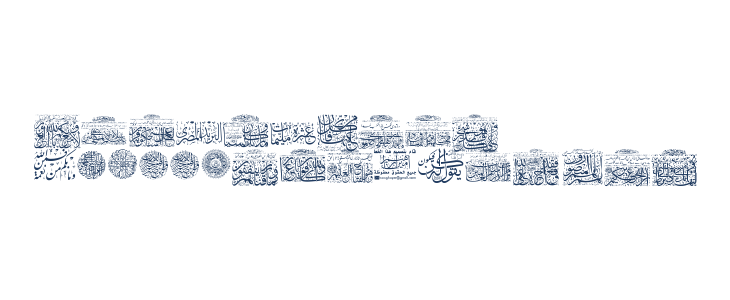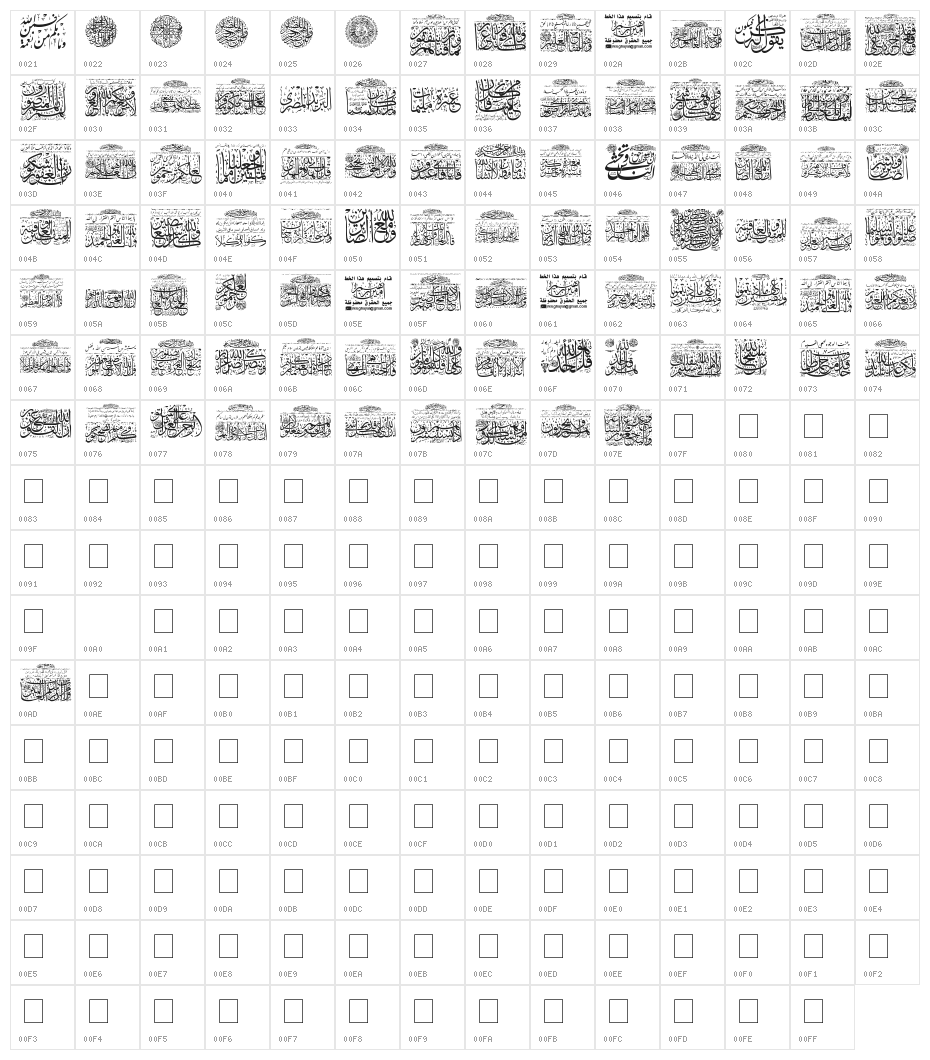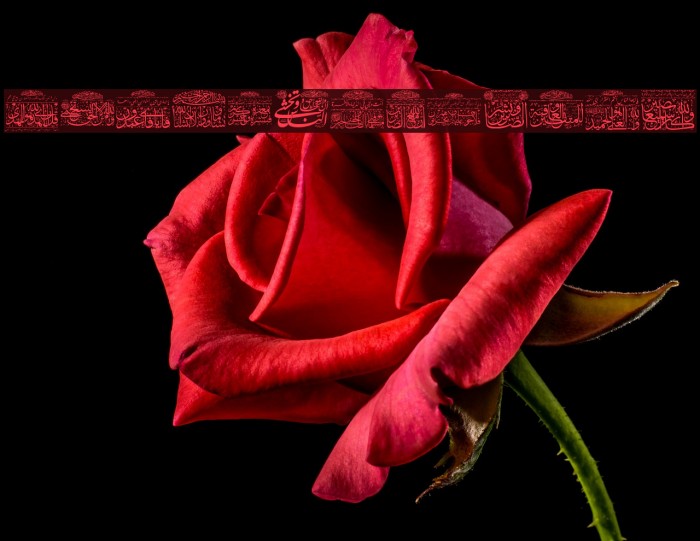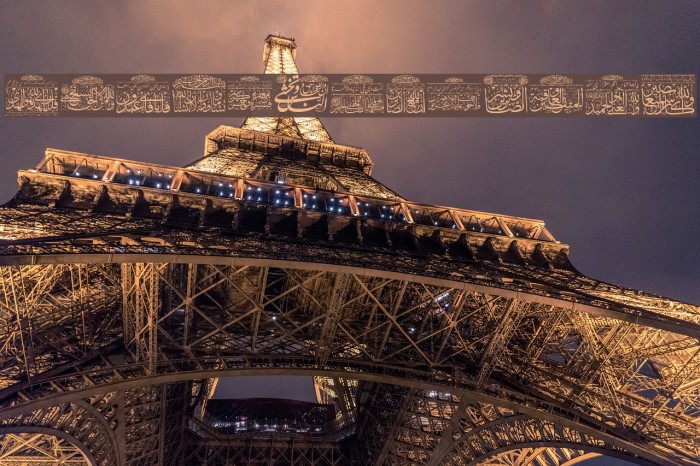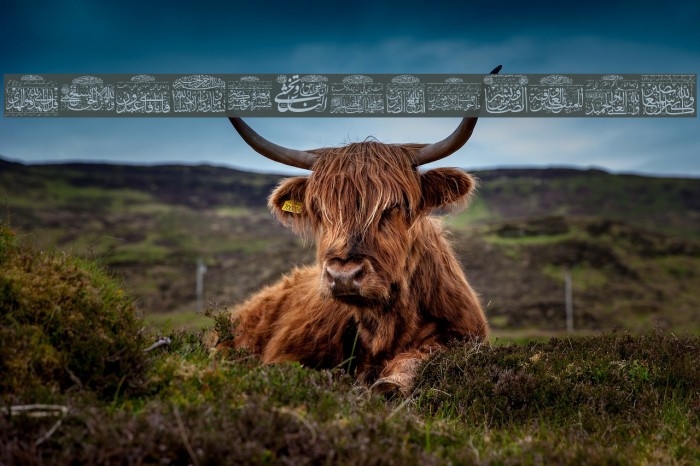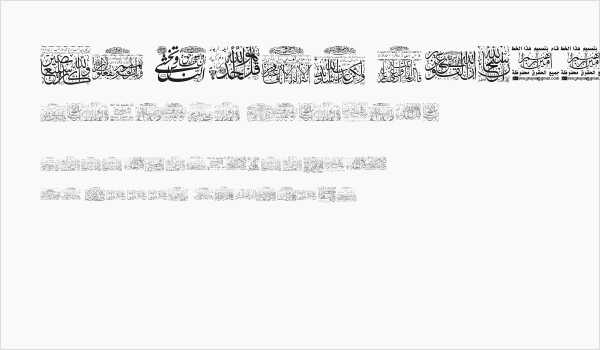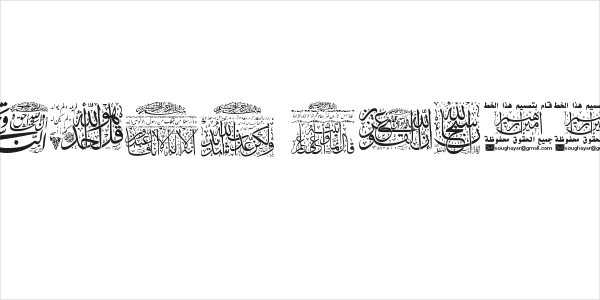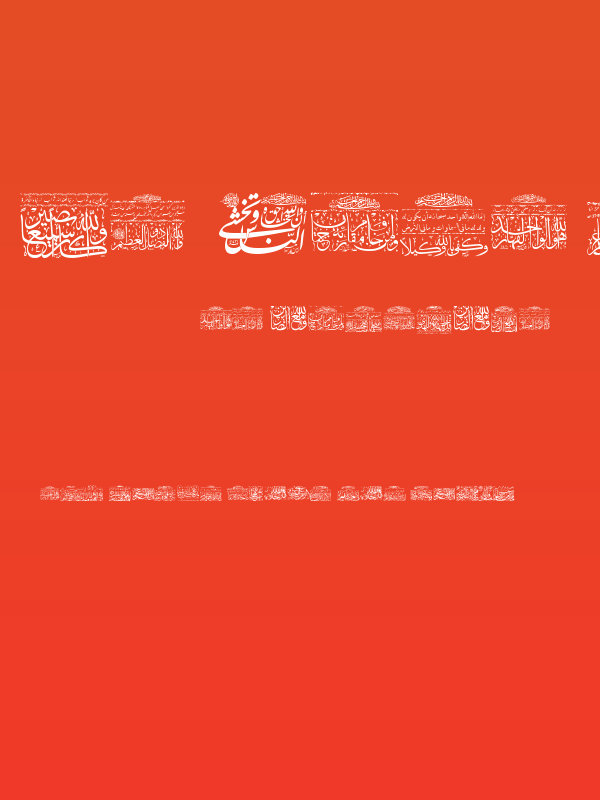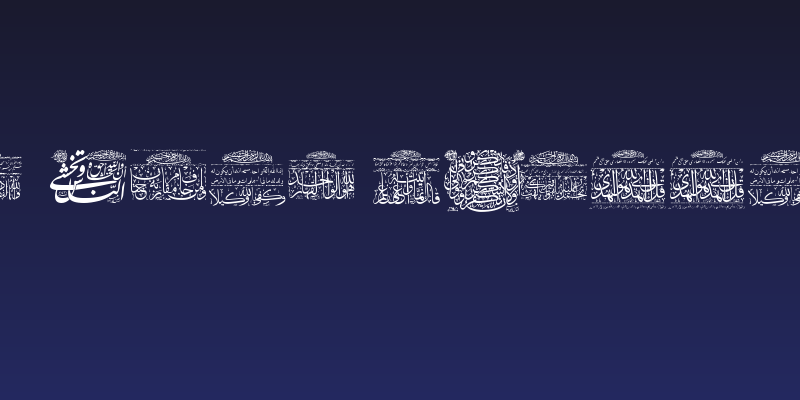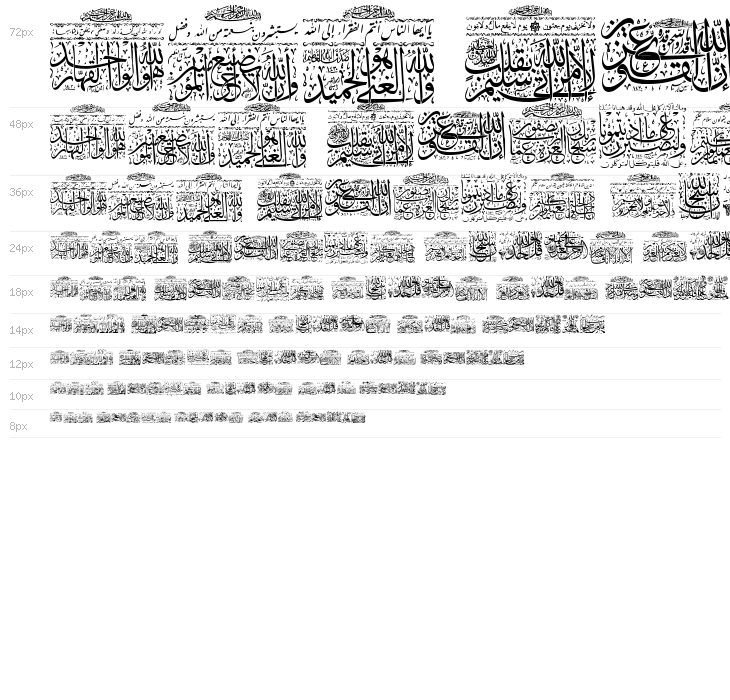
My Font Quraan 8 Font
My Font Quraan 8 Description
Highly ornate Arabic script with intricate decorative elements, featuring bold strokes, complex ligatures, and elaborate flourishes typical of traditional religious calligraphy. The glyphs are densely packed, with significant variation in stroke thickness and extensive use of diacritical marks.
Sughayer Foundry - Amin Sughayer
| Overall Style | Traditional, Decorative, Religious |
| Use Case | Religious manuscripts, ceremonial headings, artistic displays |
| Proposed Projects | Religious texts, ceremonial documents, artistic posters, cultural event materials. |